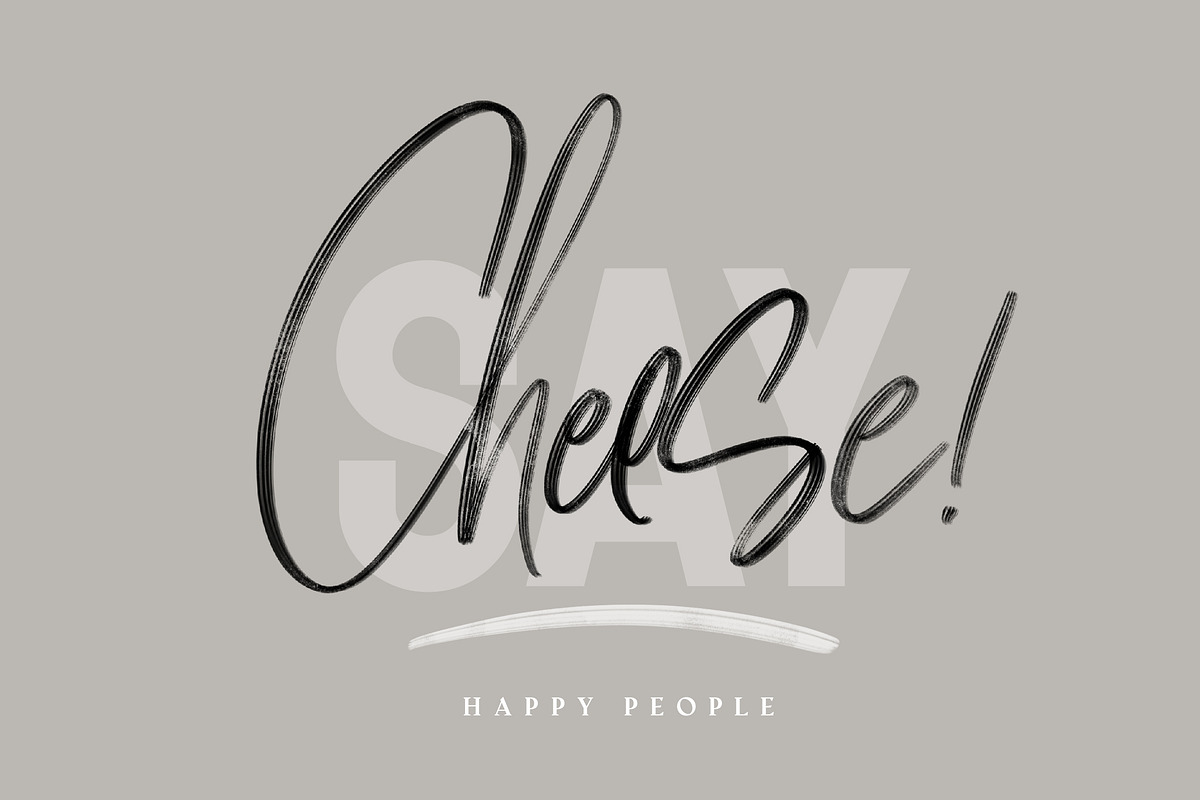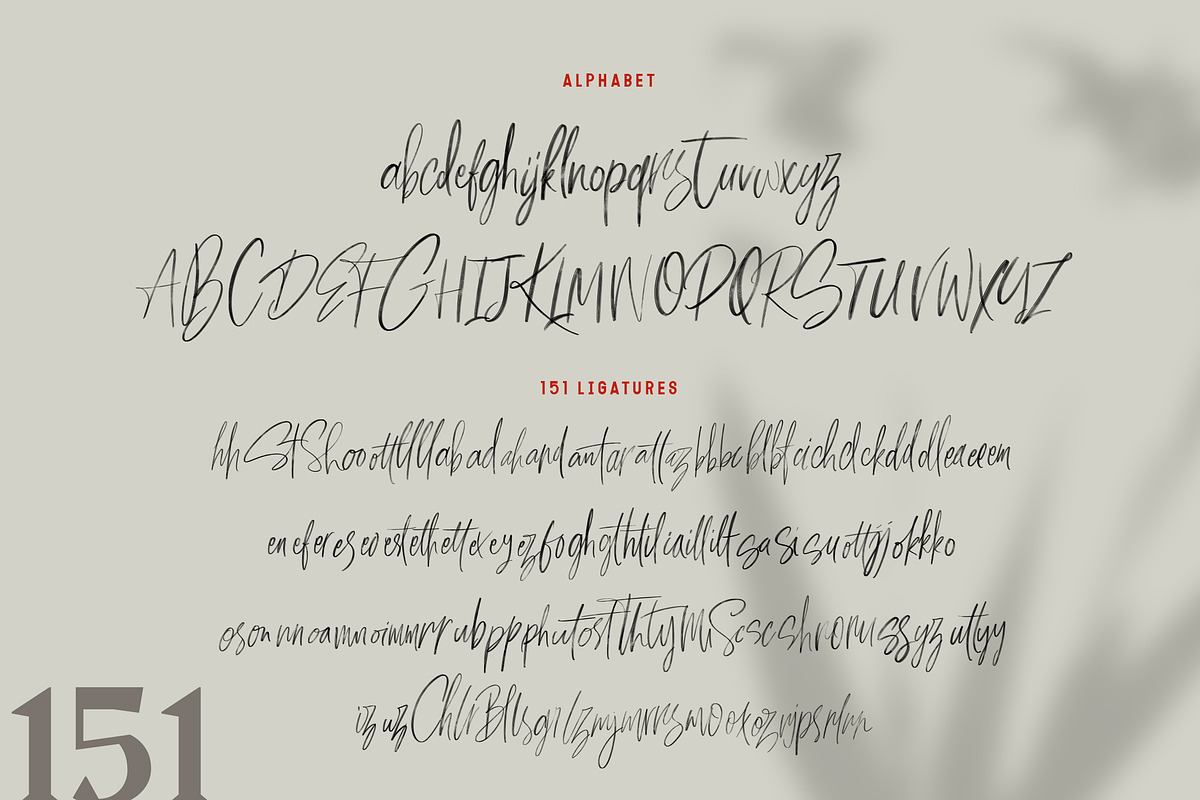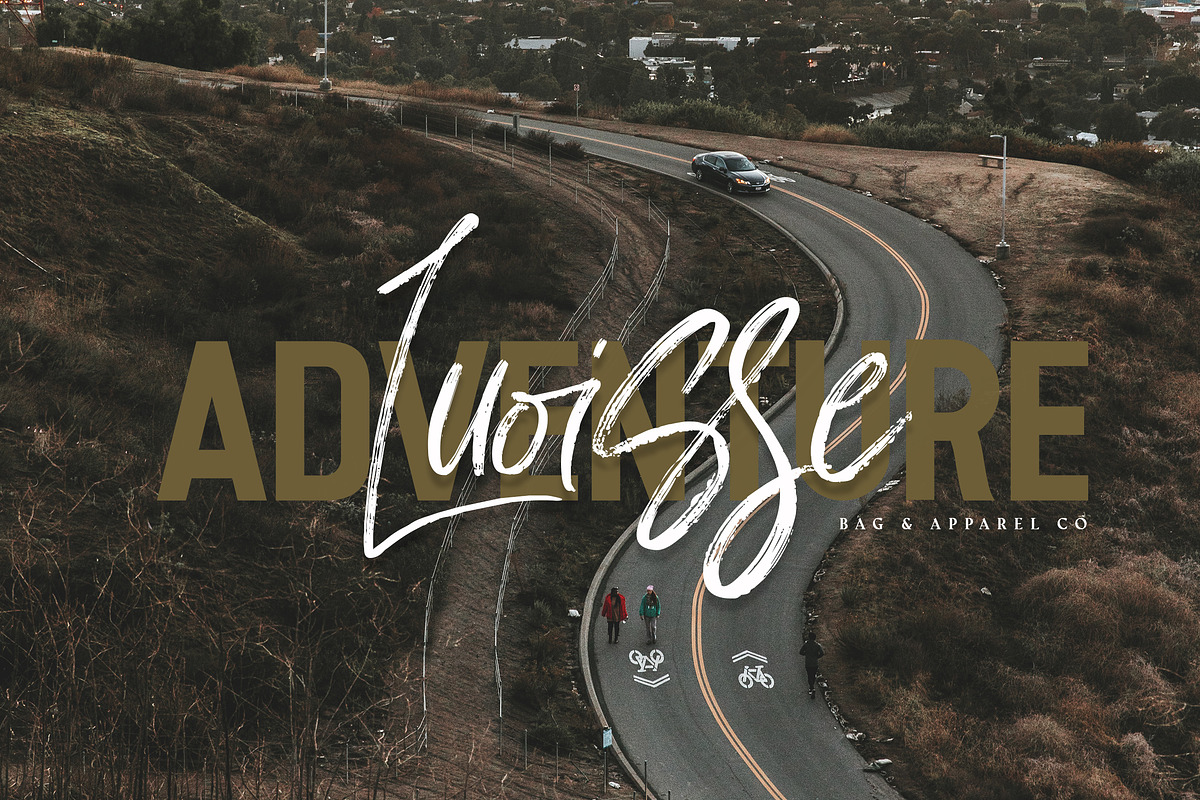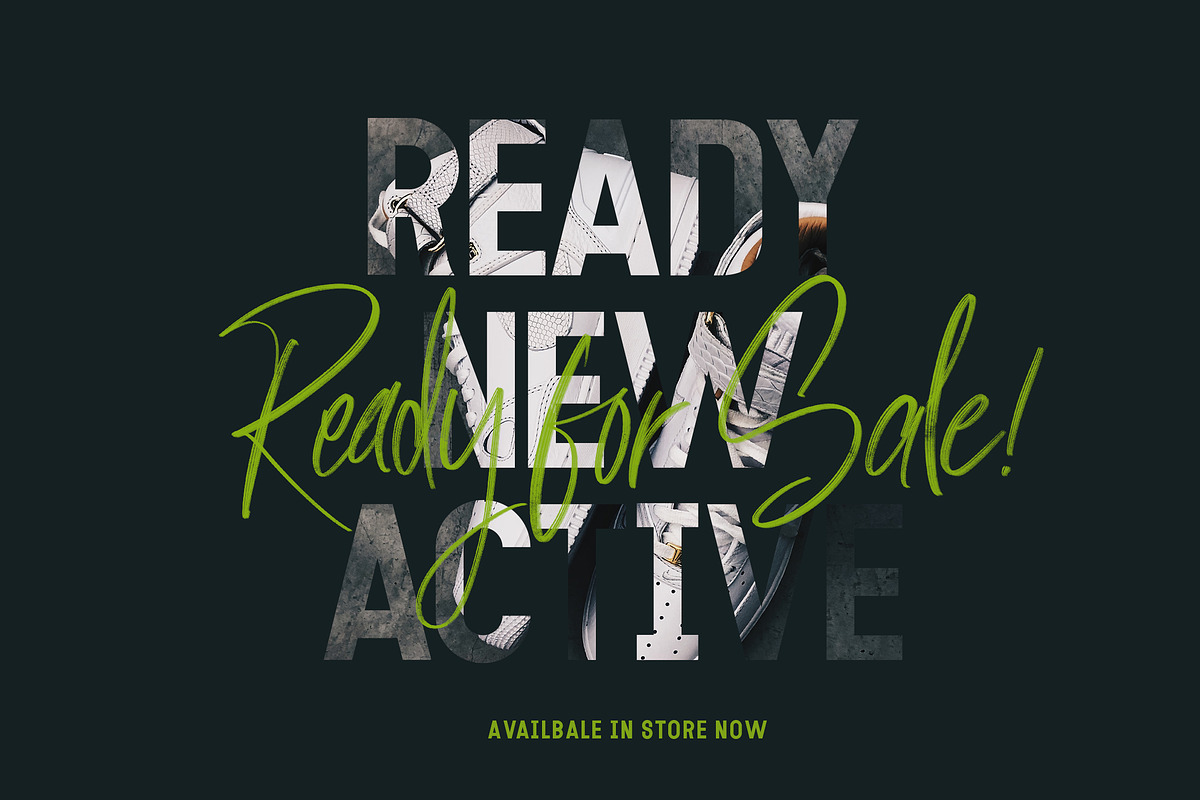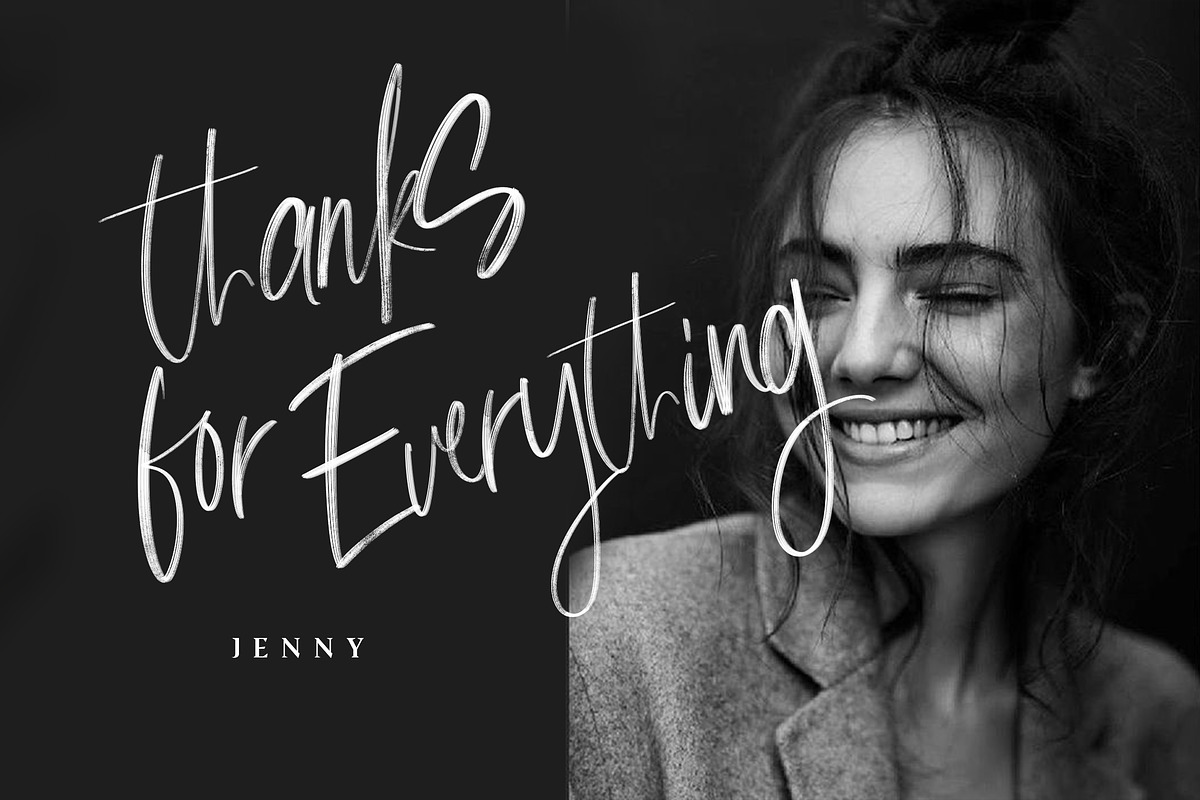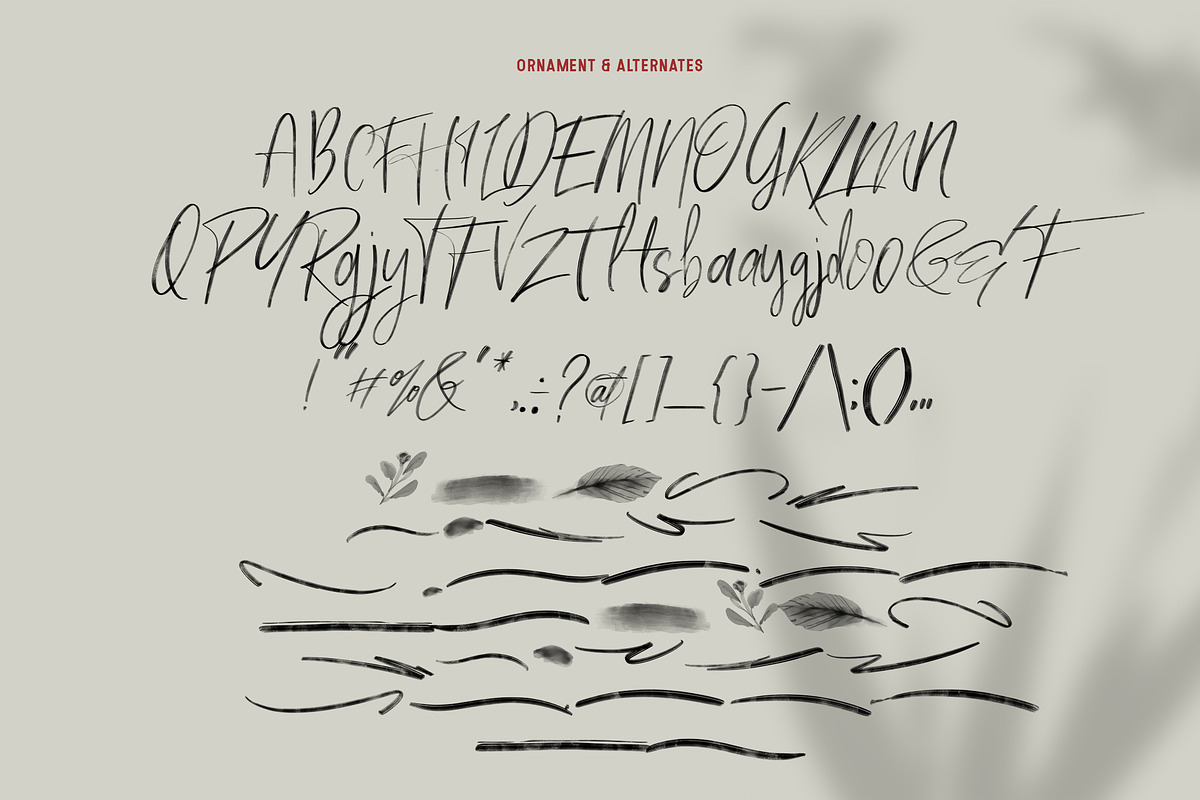
Milles Svg - Unique Handwriting
Milles Handwriting stylish modern calligraphy font, included with 151 unique ligatures and 45 alternates , come with transparant style with original ink, matching for wedding, invitation, branding, social media posts, advertisements, product packaging, product designs, label, photography, watermark, invitation, stationery and any projects that need handwriting taste.
151 ligatures__hh St sh tt ll ab ad ah and ant ar att az bb bc bl bf ci ch cl ck dd dl ea ee em en ef er es eo est eth ett ex ey ez fo gh gt ht il ia ill ilt sa si su ott jj ok kk ot os on nn oa mn oi mm rr ub pp ph ut ost Th ty Mi Sc sc sh ro ru ss yz utt yy iz uz Ch Lr Bl ls gr lz mj mr rs mo ox oz rj ps rl rr qx th ri ts tz yg us zj oss ass ars iss uss aff ess nit ow aw ash osh ish ush as is Et Ef Ek Eb El ur or gg eg uh ds eh ii oh nk ng va vi vu ag ig vv ve ff st
45 alternates